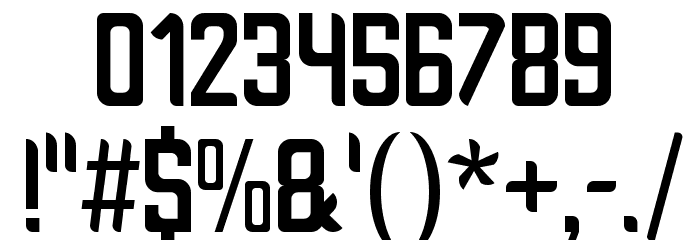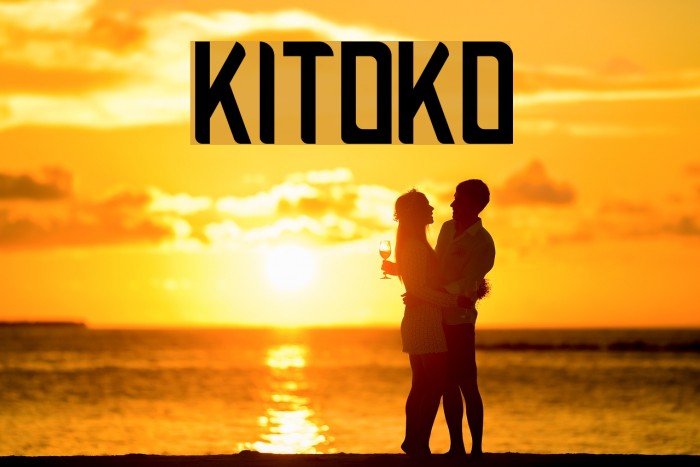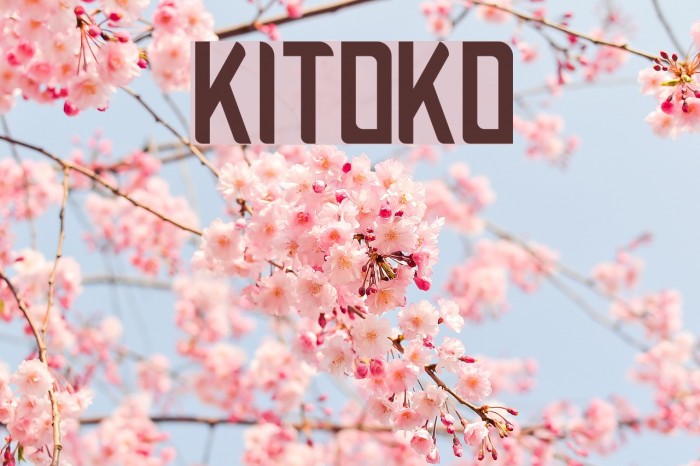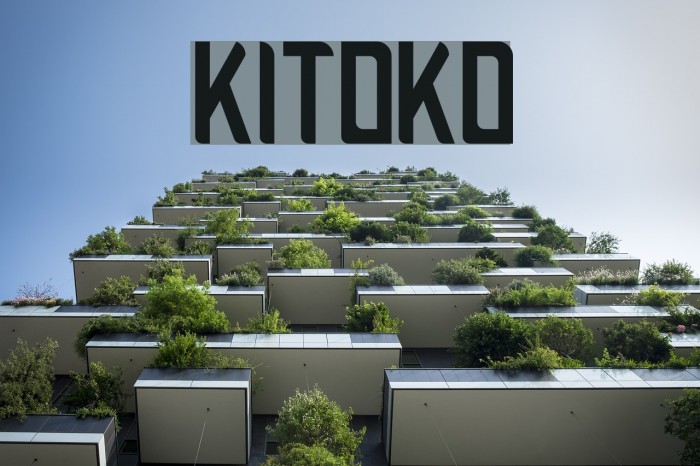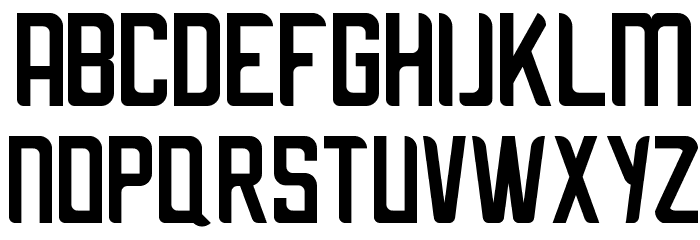
Kitoko Font
Kitoko Description
This font features a bold and modern design with a geometric structure. The characters are uniform in height and width, providing a clean and consistent appearance. The uppercase and lowercase letters share a similar style, with slightly rounded edges that soften the overall look. The numerals are distinct and easy to read, making them suitable for various applications. Special characters are well-integrated, maintaining the font's cohesive aesthetic. The font's design is both functional and stylish, making it versatile for a range of uses.
A bold, geometric font with a modern and clean aesthetic from Uncategorized fonts.
- Proposed Projects: Ideal for branding, posters, headlines, and digital media where a strong, modern presence is desired.